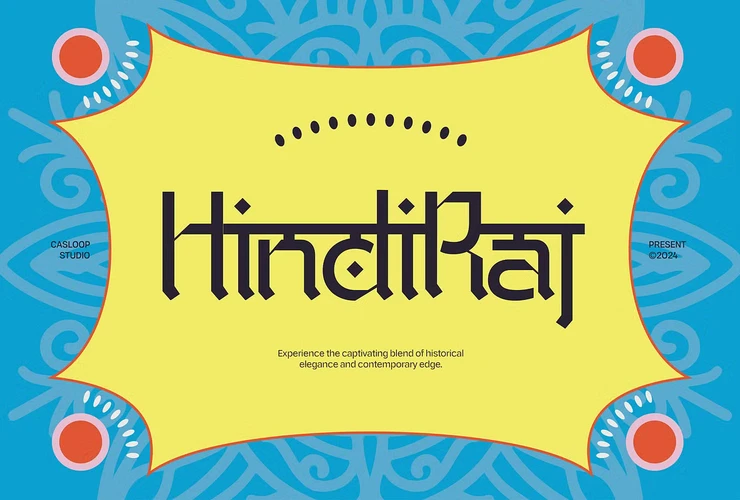
Embrace the Spirit of India with “Hindi Raj – Festive Devanagari Font”
Hindi Raj – Festive Devanagari Font is more than just a typeface; it’s a celebration of India’s rich cultural heritage. Designed by Casloop Studio, this font captures the essence of India’s vibrant festivals, blazing colors, and intricate traditions. Whether you’re working on a logo, poster, or social media post, Hindi Raj brings an eccentric yet elegant touch to your designs.
Why Hindi Raj is the Perfect Choice for Your Festive Designs
1. Reflects the Richness of Indian Culture Hindi Raj embodies the spirit of Indian festivals, with its intricate and decorative style inspired by the colors and traditions of India. This font is perfect for projects that aim to capture the festive atmosphere, whether it’s for Diwali, Holi, or any other cultural celebration.
2. Versatile and Artistic Design The Gentle Sans Serif combined with ornate decorations makes Hindi Raj versatile for various design applications. It’s ideal for logos, greeting cards, packaging, editorial layouts, and even educational materials. The font’s artistic form ensures that your designs stand out with a unique blend of tradition and creativity.
3. Multilingual Support Hindi Raj is not just limited to Indian languages; it supports a wide range of languages, including Bosnian, Catalan, Czech, Danish, German, Spanish, Finnish, French, Italian, and many more. This makes it a valuable tool for global projects that seek to incorporate a touch of Indian culture.
5. Ideal for Festive and Cultural Projects Whether you’re creating designs for festivals, educational content, or branding projects that require a cultural touch, Hindi Raj’s decorative and experimental style ensures your work resonates with the essence of Indian celebration. The font’s ability to blend tradition with modern aesthetics makes it a standout choice for any project.
Hindi Raj – Festive Devanagari Font by Casloop Studio is a perfect blend of tradition and eccentricity. Its rich and vibrant design makes it ideal for projects that aim to celebrate India’s cultural heritage. Whether you’re designing for festivals or creating a brand identity with a touch of Indian elegance, Hindi Raj ensures your work shines with originality and class.